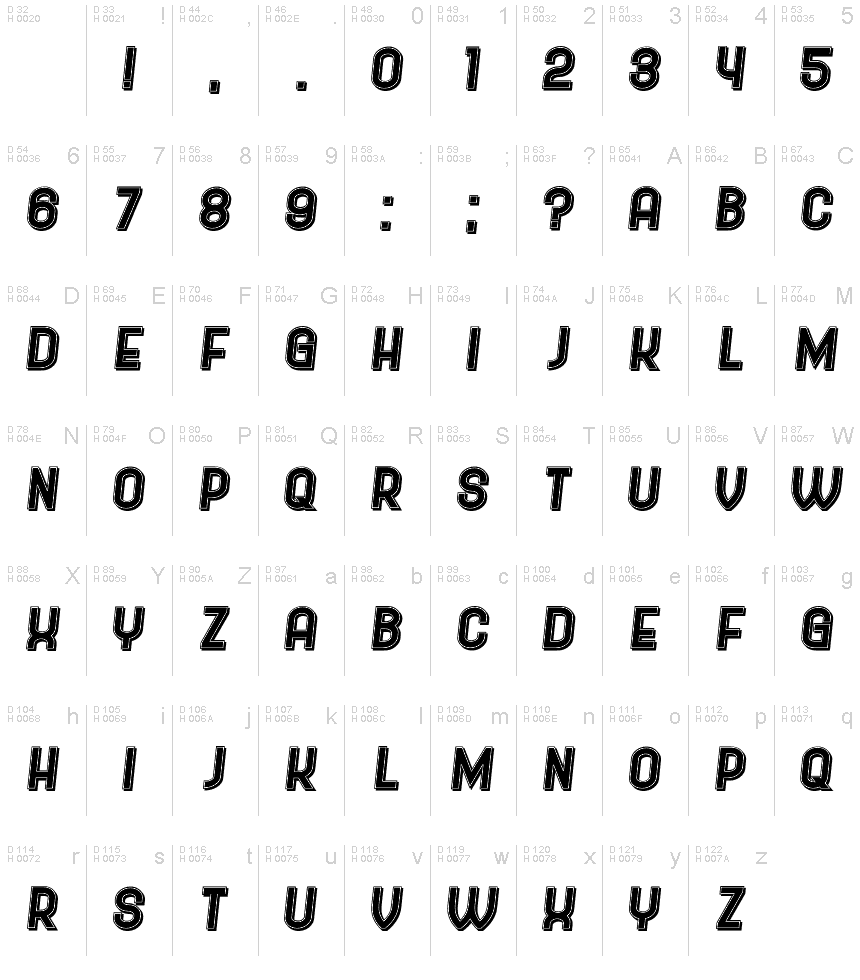
George Italic
George Italic, a remarkable sans serif font from the George font family designed by Vladimir Nikolic, exudes elegance and sophistication. With its semi-bold weight, it strikes the perfect balance between professionalism and creativity. This versatile typeface is ideal for a wide range of projects, including fashion magazines, luxury branding, modern websites, and sleek corporate presentations. Its clean lines and unique italic style add a touch of class to any design. Elevate your visual communication with George Italic and make a lasting impression on your audience.
It comes in Regular and Italic version!